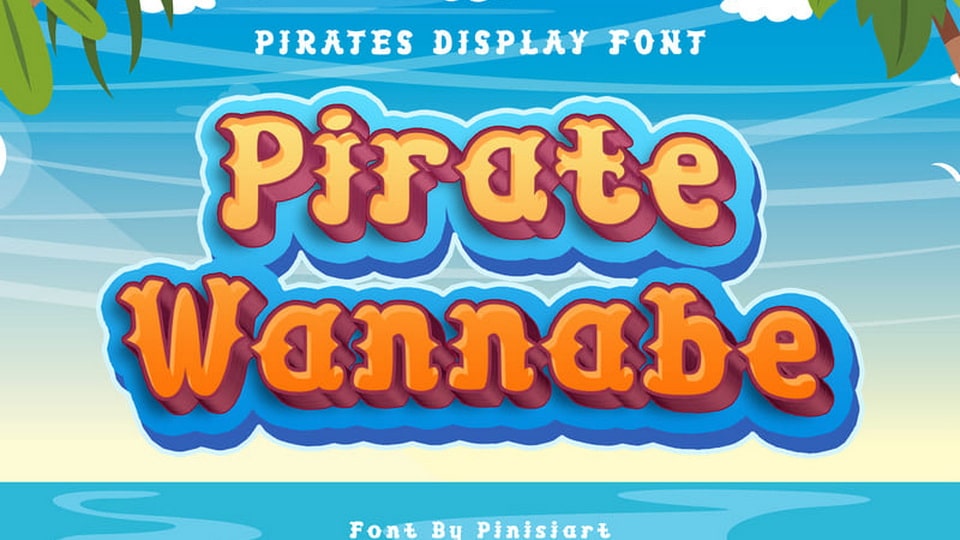
Download Pirate Wannabe font, a cartoon display typeface. With the spurs and a classic look of it, Pirate Wannabe will be a standout in the crowd. The cuteness and fun vibe of it will emphasize the children’s vibe on it.